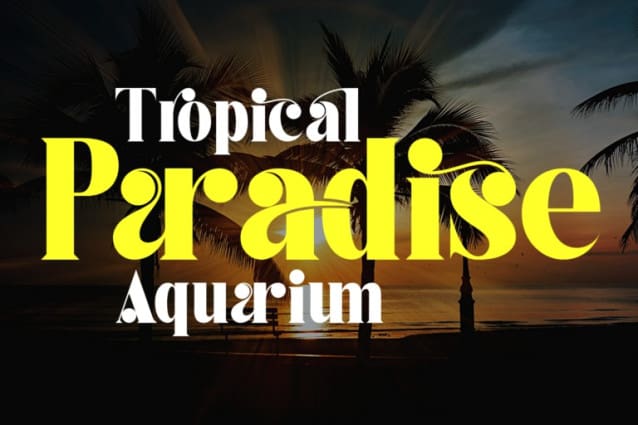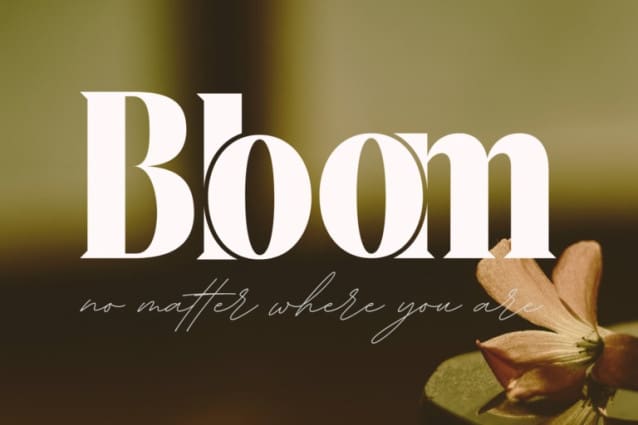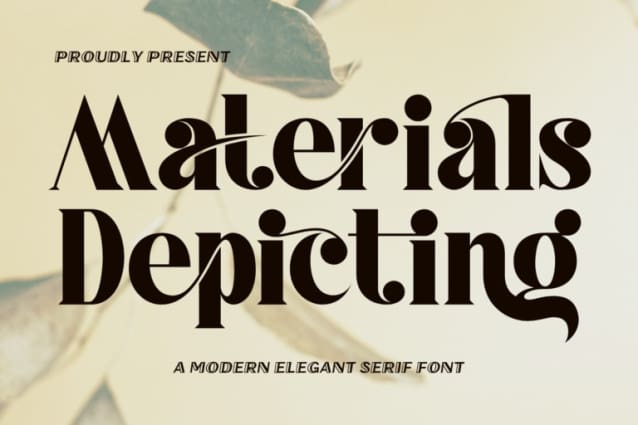
Materials Depicting Font
Materials Depicting Font is a retro, elegant and classy display serif, best used as a display for headings, logos, branding, magazines, product packaging and invitations. This font equipped with Ligature and come with clean lines and smooth curves give any project an extra touch of class. It’s offers beautiful typographic harmony for a diversity of design projects, including logos & branding, social media posts, advertisements & product designs.
Materials Depicting was built with OpenType features and includes 100 ligatures, alternate, numbers, punctuation, and it also supports other languages.